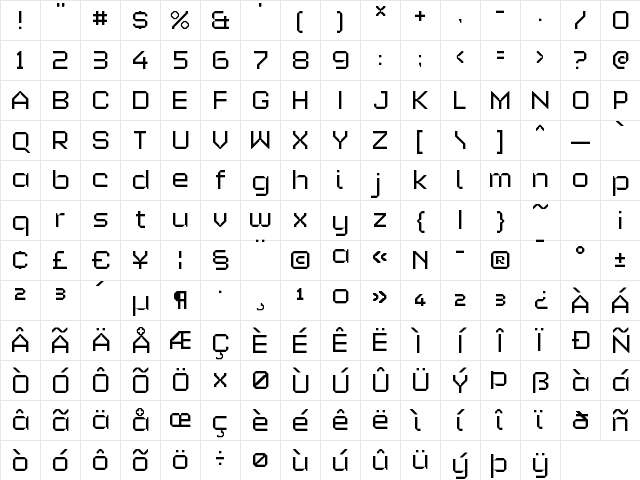
Alloy Light Free Font
Alloy Light
Foundry: YouWorkForThem
Design Context for Alloy
Alloy is a composed and adaptable typeface that performs quietly and consistently across a wide range of design contexts. Its slender proportions lend an understated elegance to any composition.
Who designed the Alloy Light font?